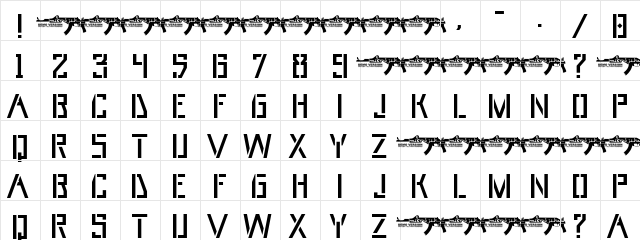
Umar Stencils Umar Stencils
Design Context for Umar Stencils Typeface
Umar Stencils has the rough pragmatism of spray-painted stencil signage, adding a raw, street-level authenticity to designs.
A strong choice for packaging that needs edge, warehouse aesthetics, and rough-and-ready visual identities.
Pro Tip: Use Umar Stencils at large sizes on packaging, posters, or apparel where the stencil cutaways read clearly. Avoid small sizes where those gaps become visual noise.